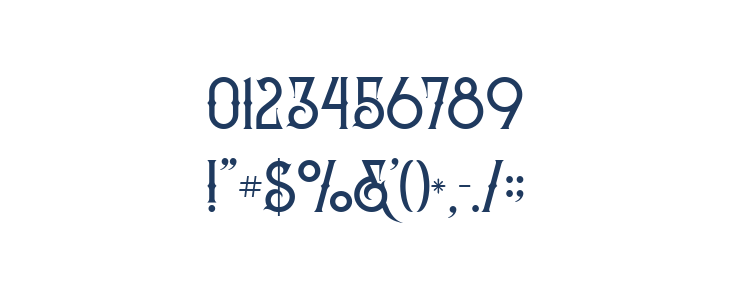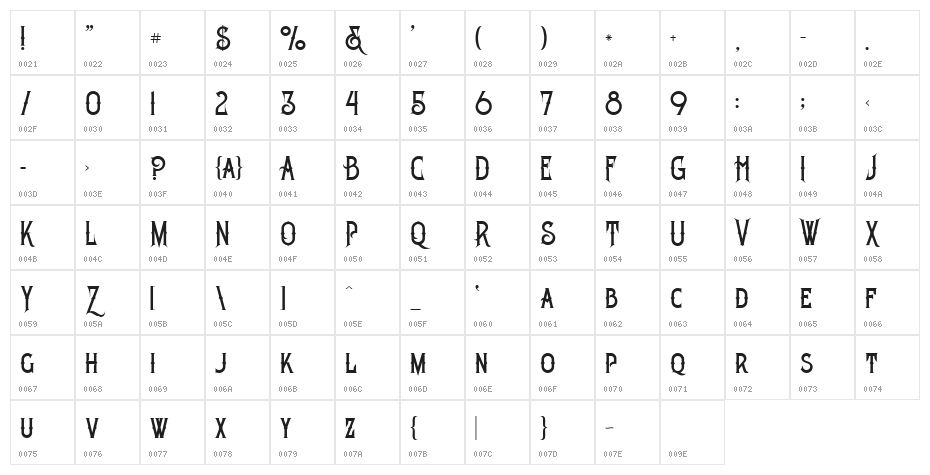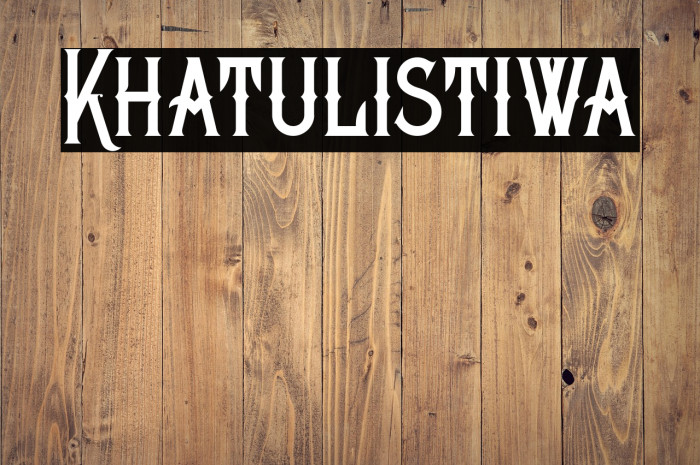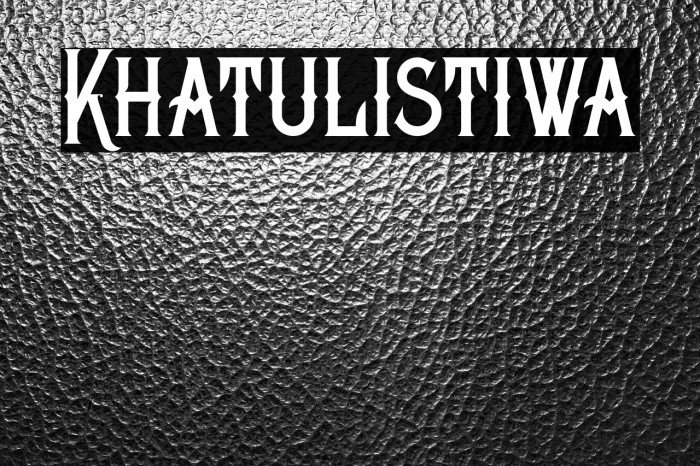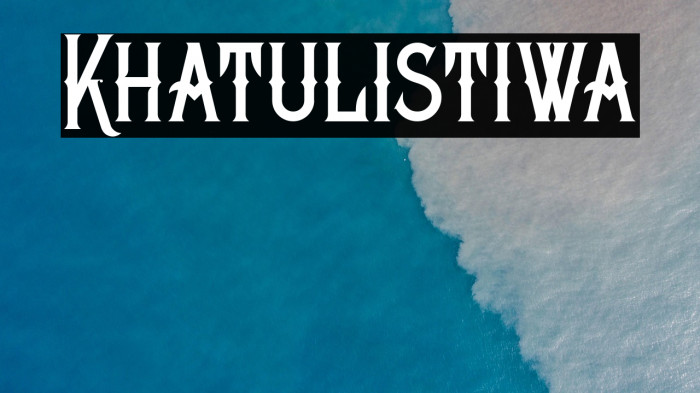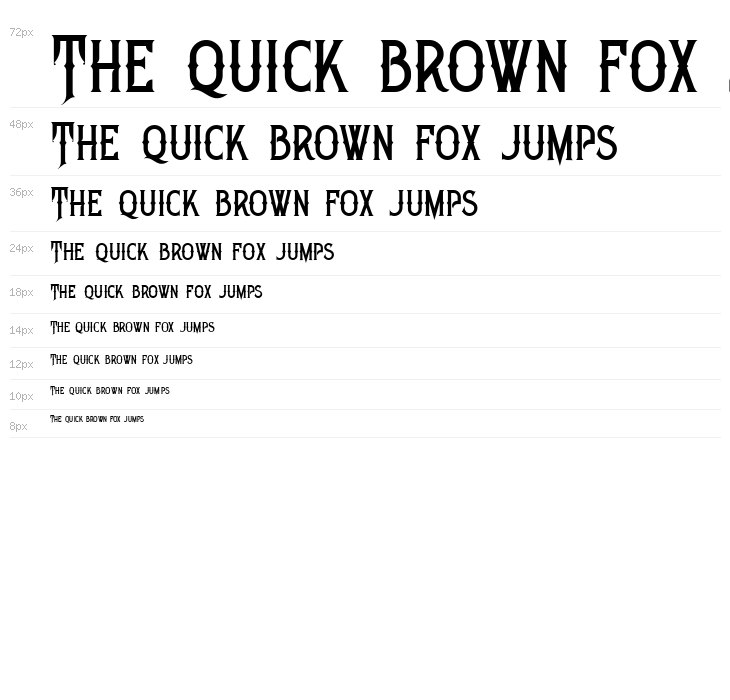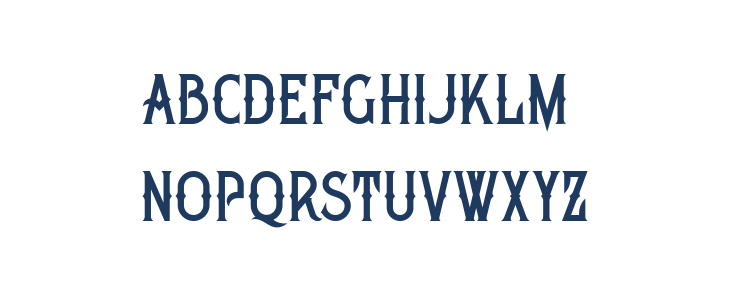
Khatulistiwa Font
Khatulistiwa Description
This font features a bold and dramatic style with sharp, angular serifs and a distinct Gothic influence. The uppercase letters are tall and imposing, with a strong vertical emphasis and intricate detailing that adds a sense of elegance and sophistication. The lowercase letters maintain the same boldness, with unique curves and angles that create a cohesive look. Numbers and special characters are equally stylized, ensuring consistency across all text. The overall design is striking and memorable, making it ideal for projects that require a bold statement.
| Overall Style | Gothic, Decorative |
| Proposed Projects | Ideal for branding, posters, album covers, and any project requiring a bold, dramatic aesthetic. |